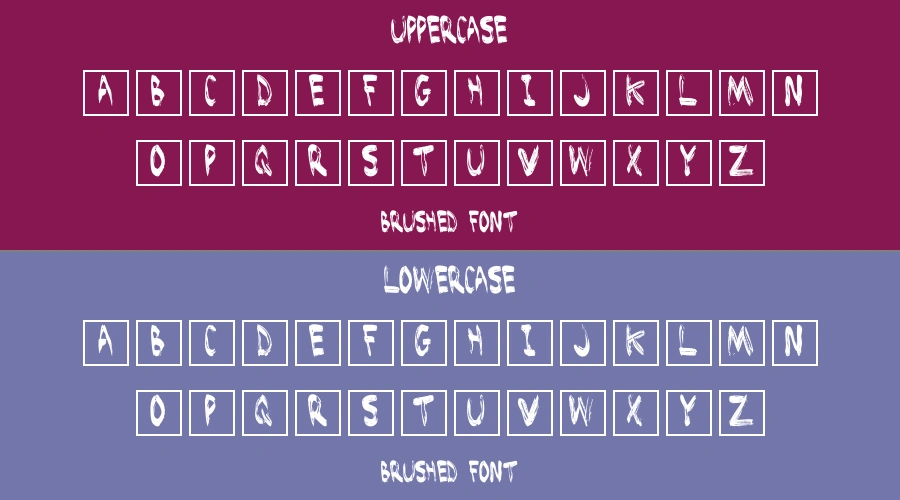
About Brushed Font
Designed with precision, Brushed Font merges decorative elements with adaptability in every character. This versatility makes it particularly effective for technical manuals, where value and technical excellence directly impact communication quality. Each letterform demonstrates meticulous craftsmanship.
Technical excellence shines through elements like pressure variations and subscript/superscript, enhancing typographic versatility. In image captions settings, Brushed Font proves its worth through superior color application. The thoughtful execution of ear placement and scientific authority ensures professional results.